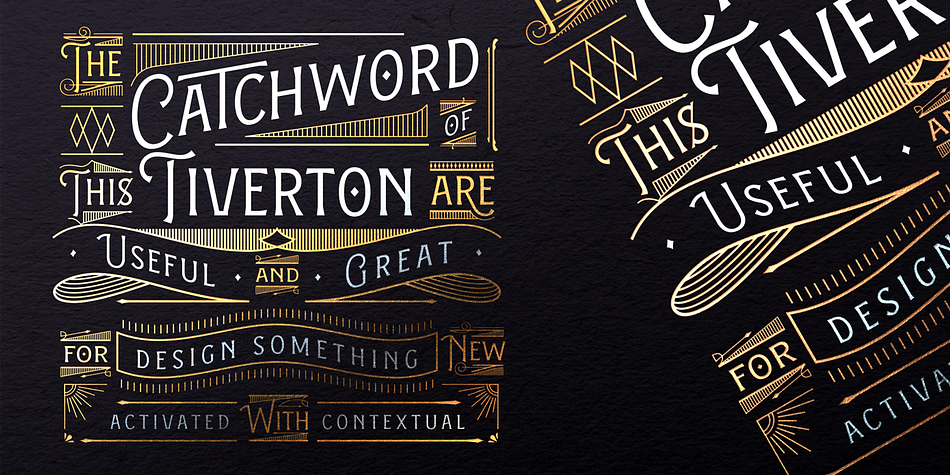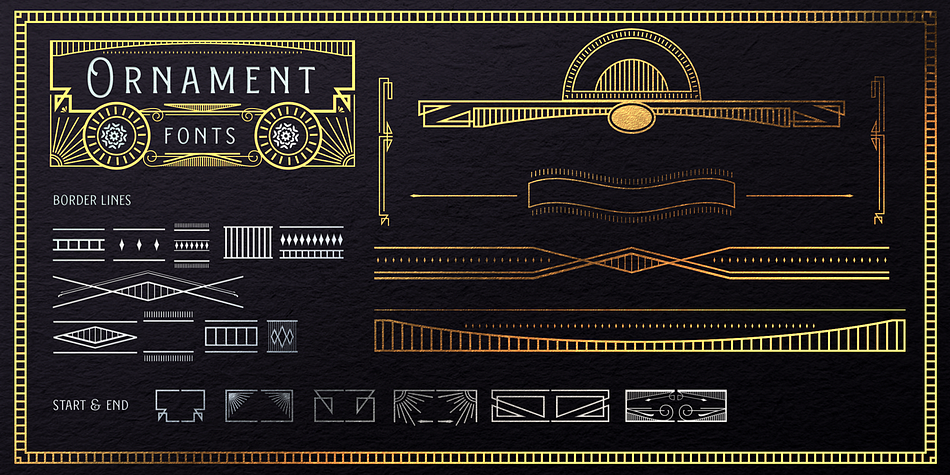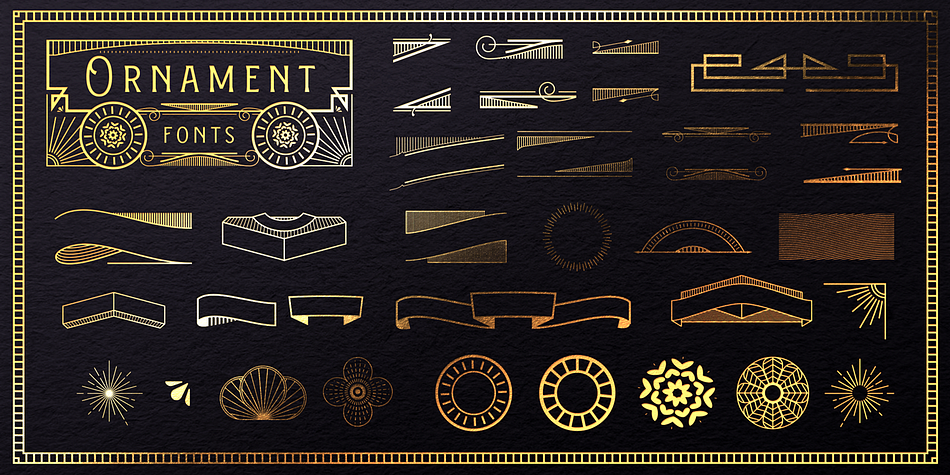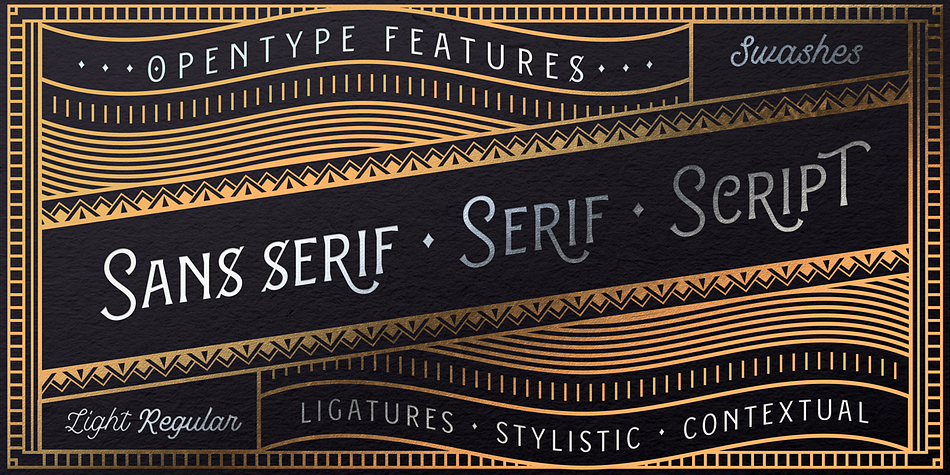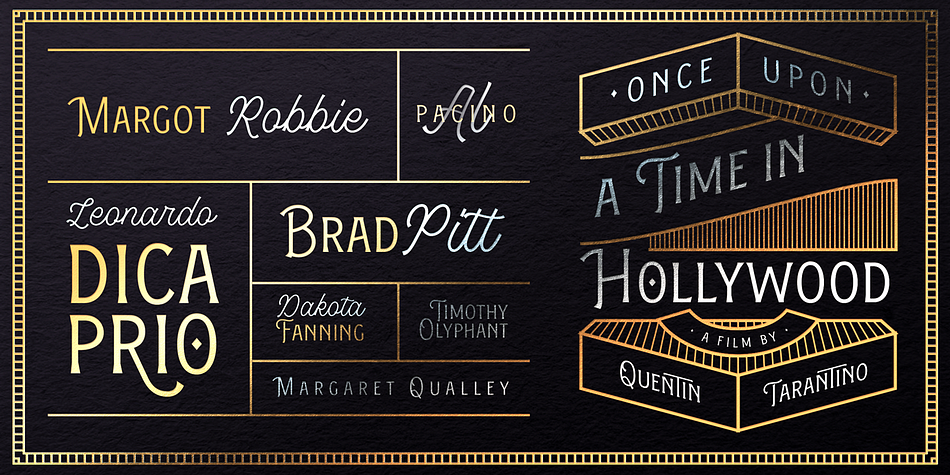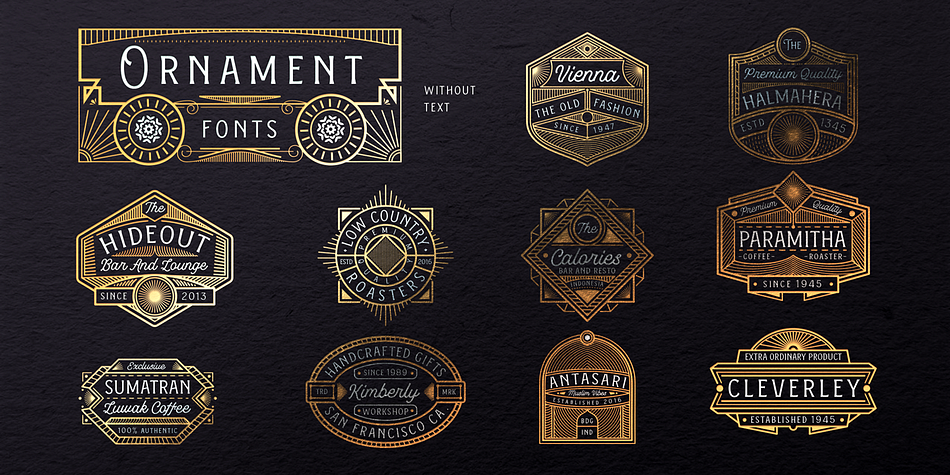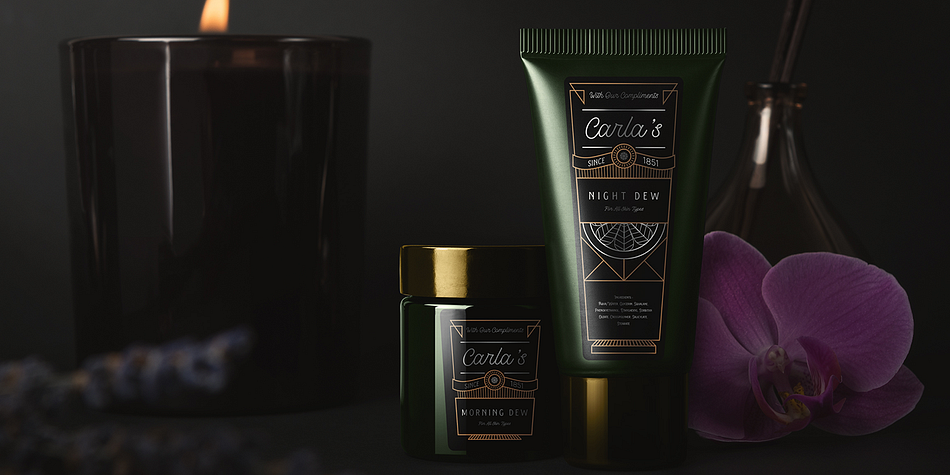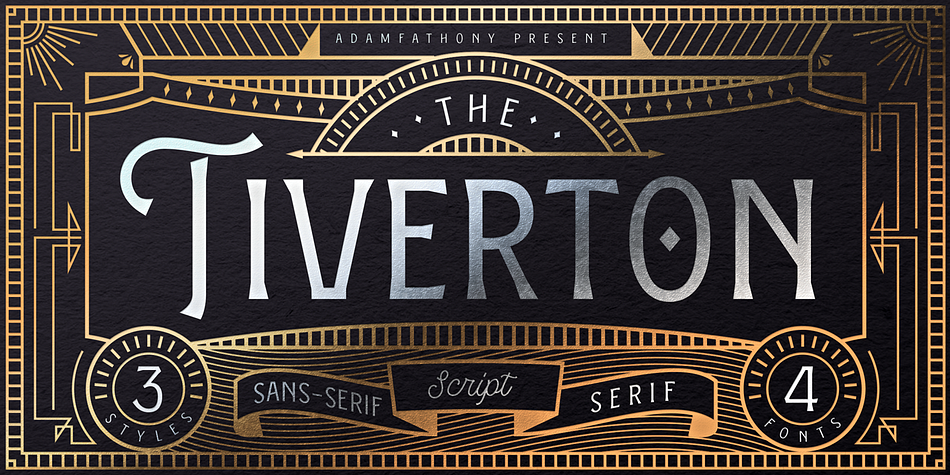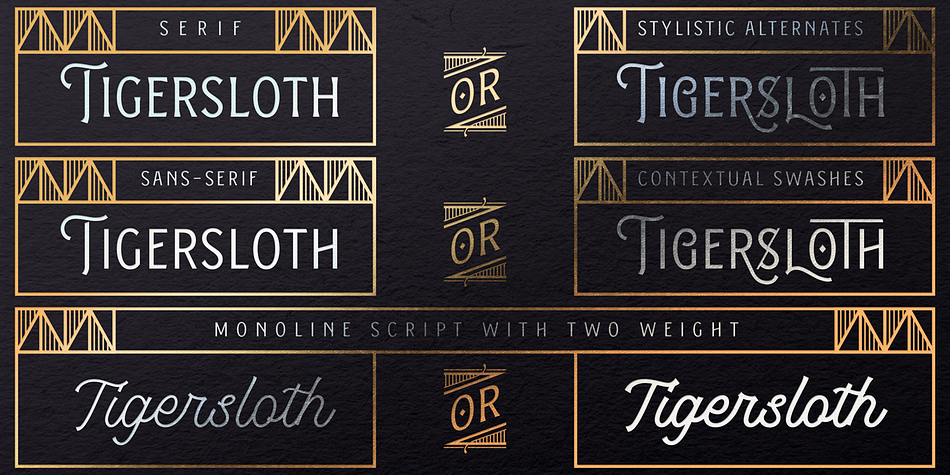
Tiverton
Tiverton is a multiple classification font family. This typeface has five styles and was published by AF Studio.
The Tiverton - Combination Font Trio with Huge Extras.
The Idea behind this typefaces was combine something retro, vintage with a style this century. A reference from Vintage Typography, Art Deco, Neo Deco. With an improvised and create something in between those styling. Tiverton created in Serif, Sans-Serif and Script. Within 3 Style, it more helping and easier for create something without “thinking” the font compartment.
Features of Sans Serif and Serif are comes with stylistic alternates and you can activated with Contextual Swash button on Adobe Illustrator or Adobe Photoshop, And Catchword such as the preview above, activated with underscore in the beginning and end of the letters, for example : _ the _ (underscore)the(underscore).
Features of Tiverton Script are Ligatures, Contextual alternates, Contextual Swashes. no alternates. but Tiverton Script available with 2 Weight, Light and Regular.
For a bonus, I create an Ornament Fonts in case you need it. Special shout for the ornament fonts are for the borders. on the Number Character 0-9 are created for connected borders. for Beginning and end the lines you can press Shift on the Number Character. For example : type !2222@ on the text preview below and see on the Tiverton Ornament.